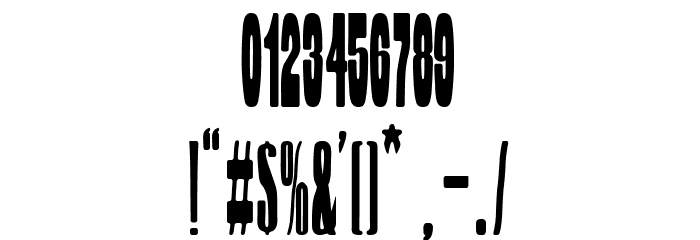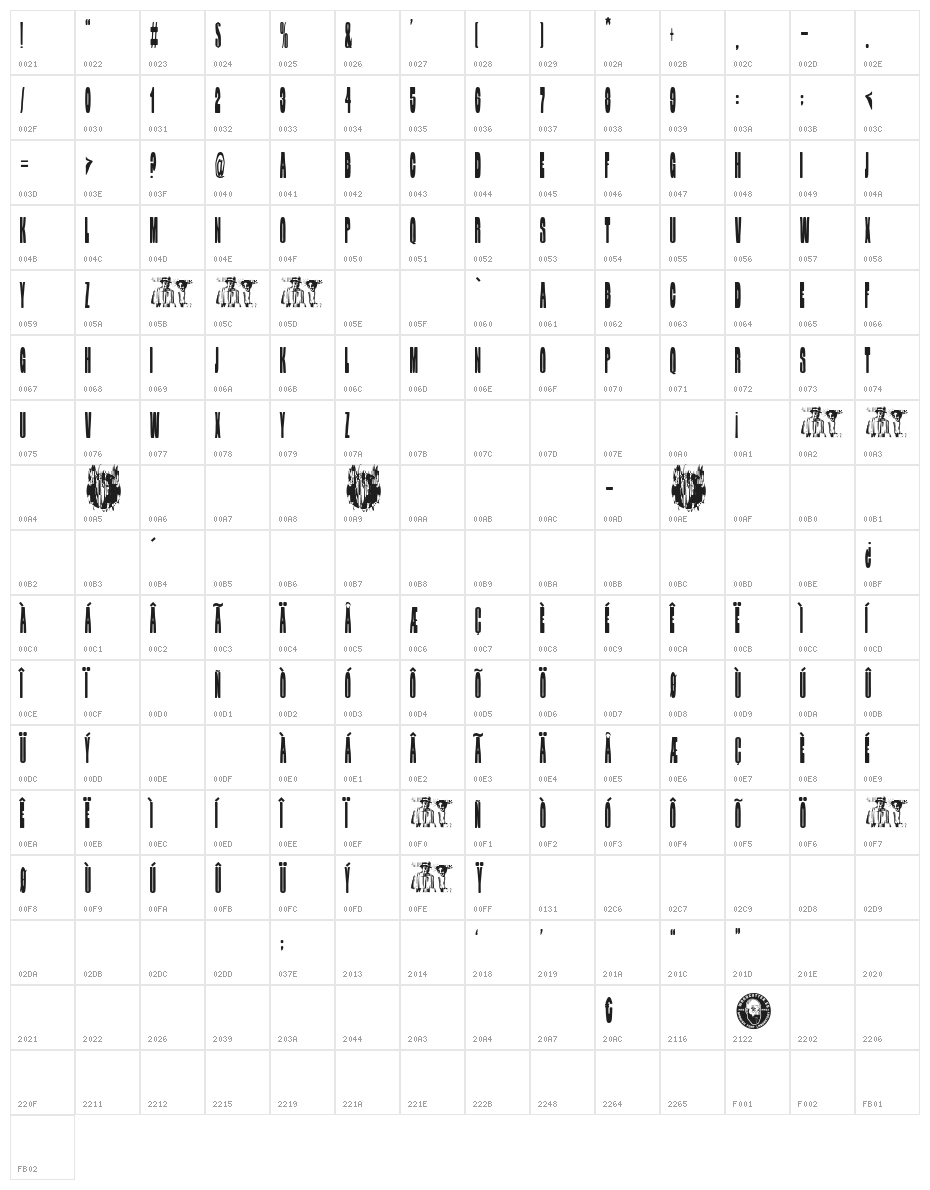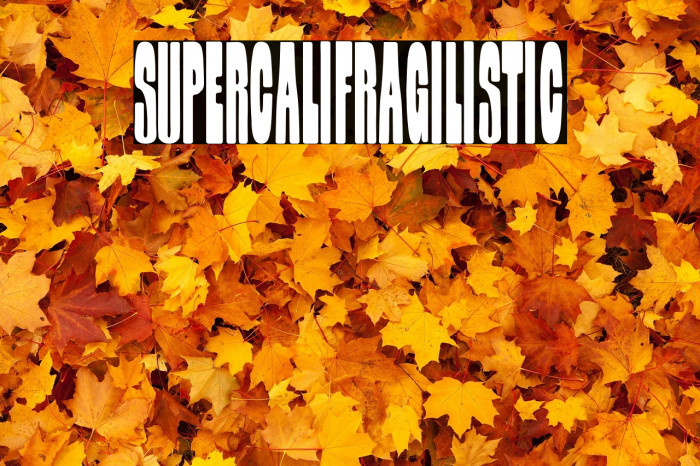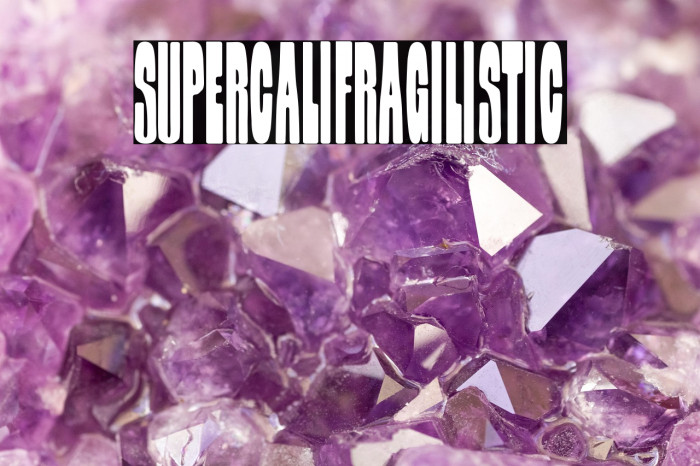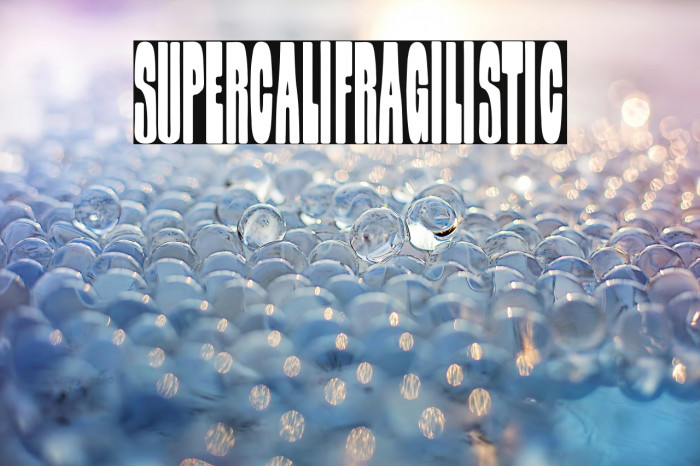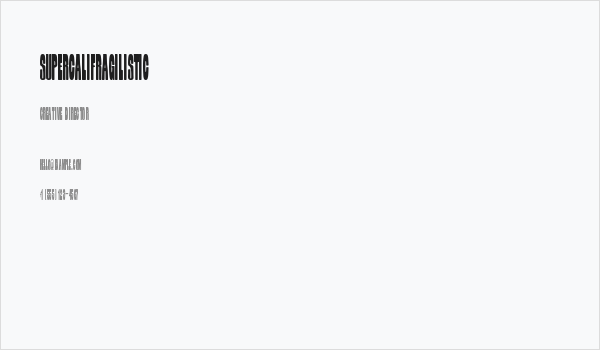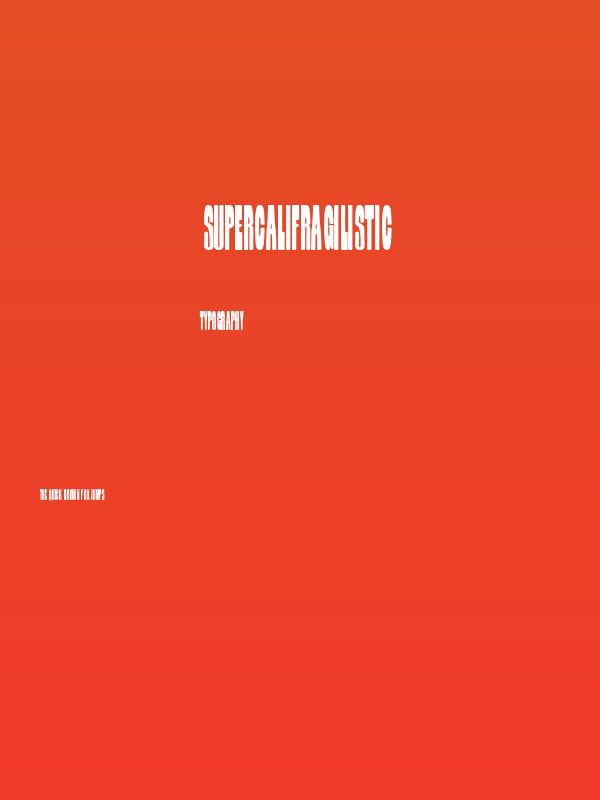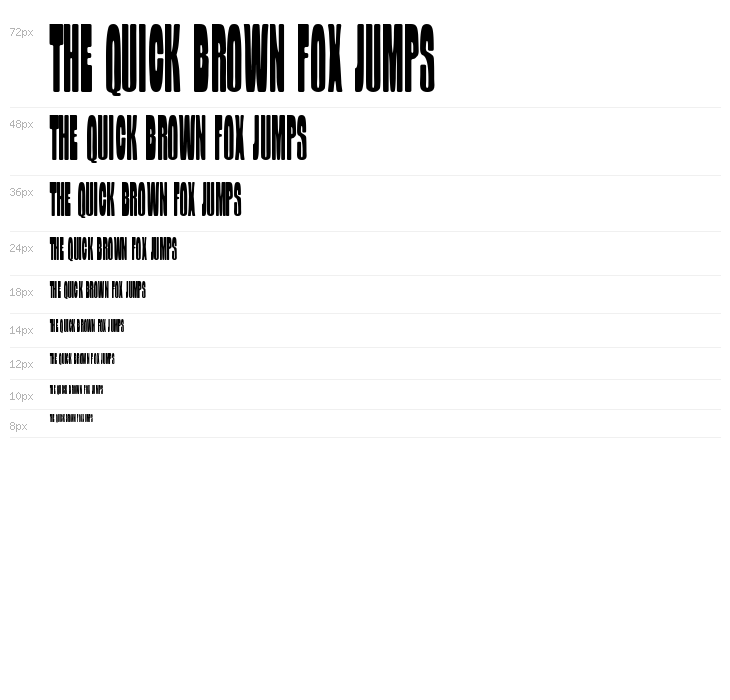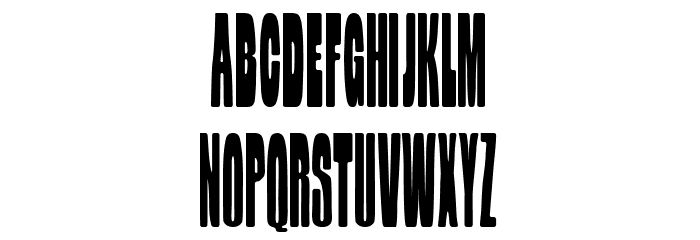
Supercalifragilistic Font
Supercalifragilistic Description
This font features a bold and condensed style with a strong vertical emphasis. The characters are tightly spaced, creating a compact and impactful appearance. The uppercase letters are tall and narrow, while the lowercase letters maintain a consistent width, enhancing readability. The numbers and special characters follow the same condensed style, ensuring uniformity across all glyphs. This font's high contrast in stroke thickness adds to its dramatic and eye-catching design, making it suitable for attention-grabbing headlines and titles.
| Proposed Projects | Ideal for posters, headlines, logos, and any design requiring a strong visual impact. |